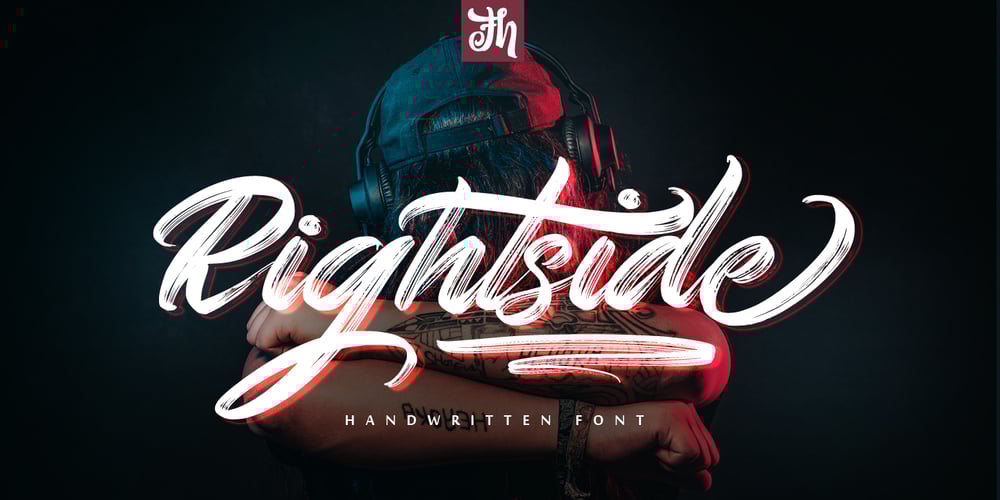
Rightside Font Family was designed by Ferry Hadriyan and published by FHFont. Rightside contains 1 styles and family package options. Rightside is a script font designed with a dry brush. The font includes OpenType features. Suitable for element design, events, t-shirts, logos, badges, stickers, awesome artwork, and more.